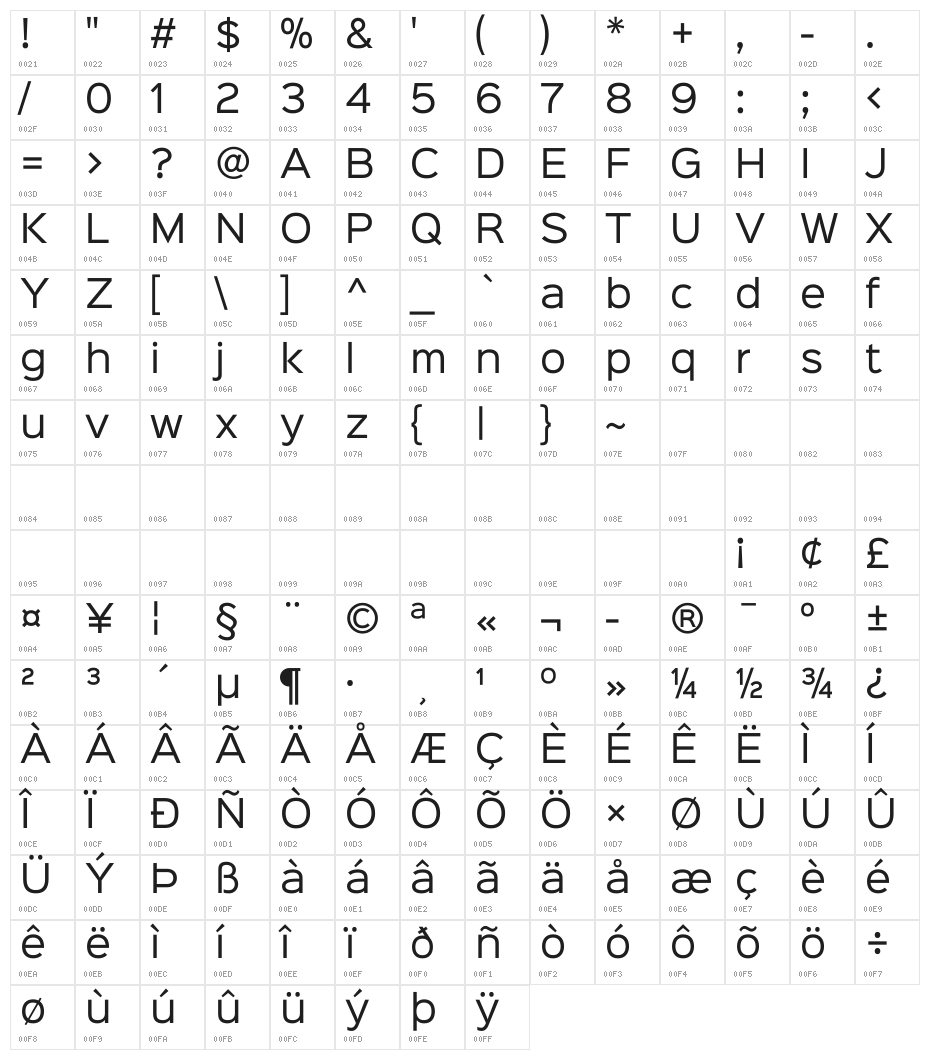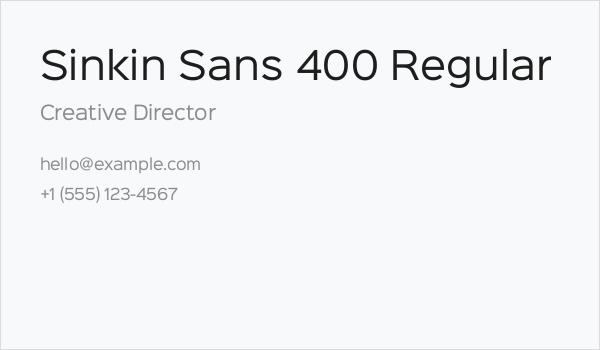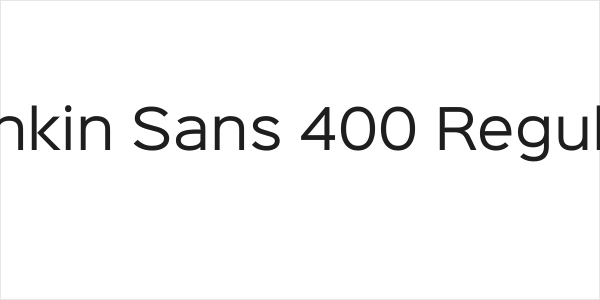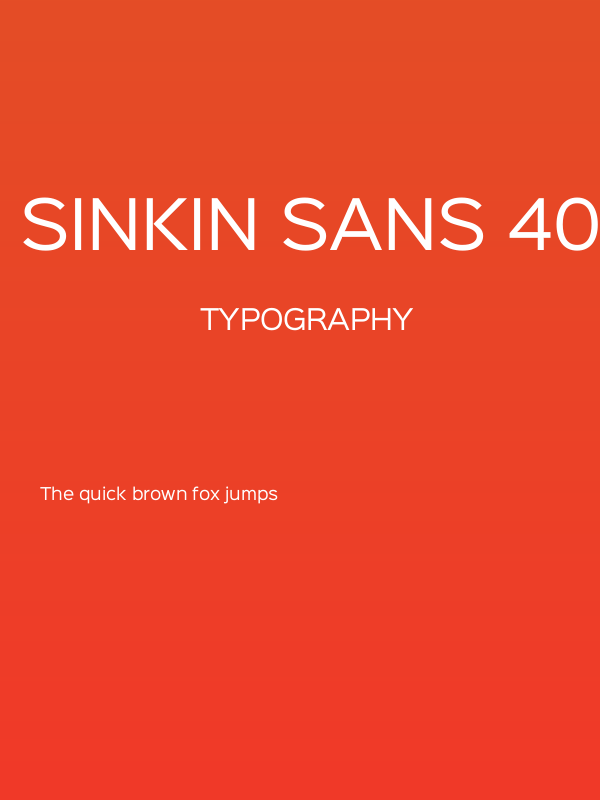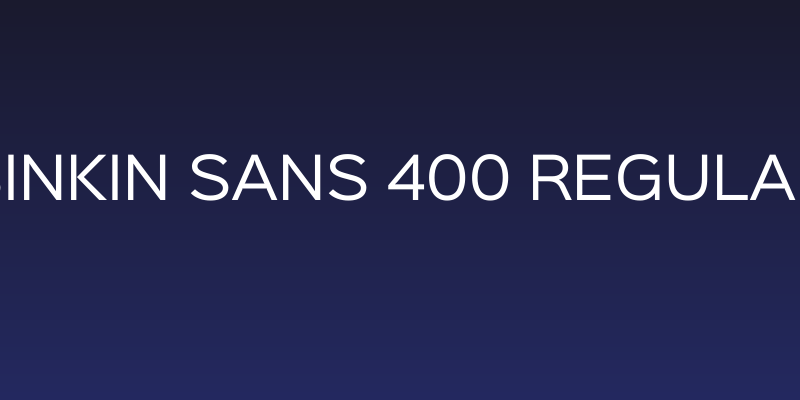
Sinkin Sans 400 Regular Font
Sinkin Sans 400 Regular Description
This font exhibits a clean and modern sans-serif style, characterized by its simplicity and readability. The characters are evenly spaced, contributing to a balanced and harmonious appearance. The strokes are consistent in weight, providing a uniform look across all letters and numbers. The design is minimalistic, with smooth curves and straight lines that enhance its legibility. This font is versatile, suitable for both digital and print media, and can be used effectively in a variety of design contexts.
| Proposed Projects | Ideal for web design, corporate branding, user interfaces, and editorial layouts. |